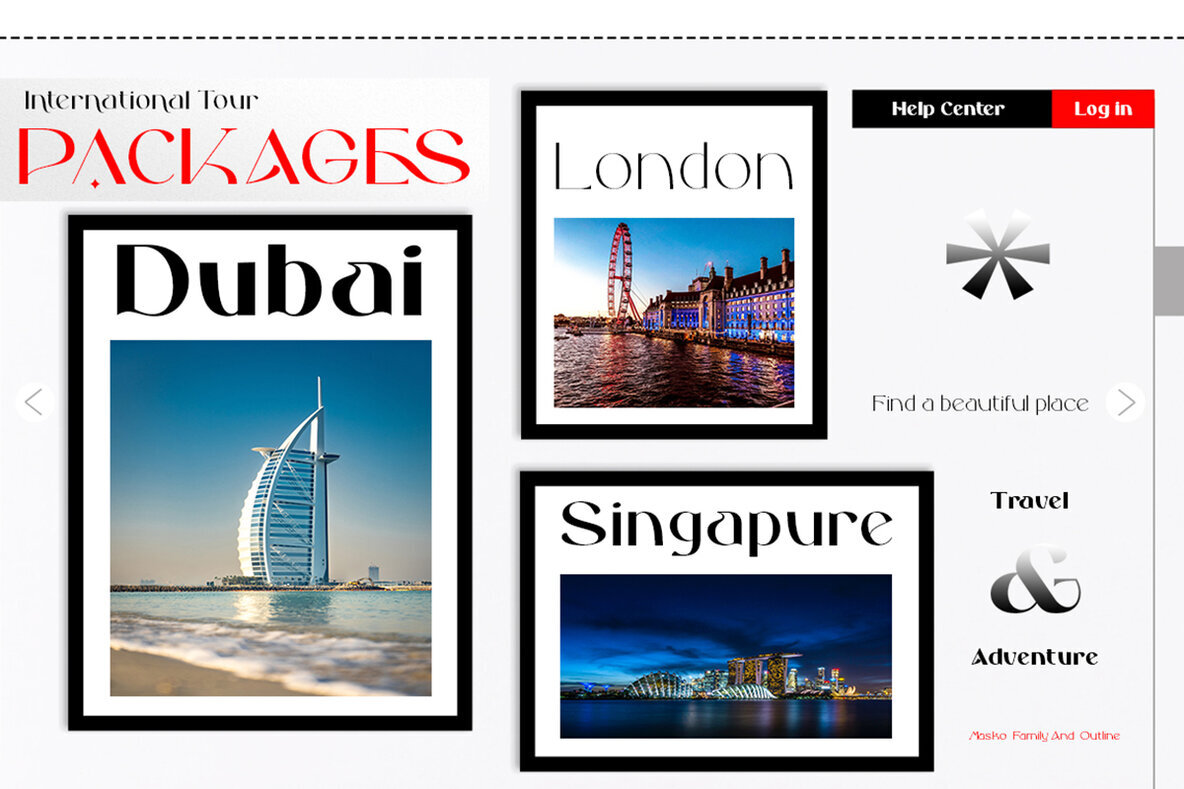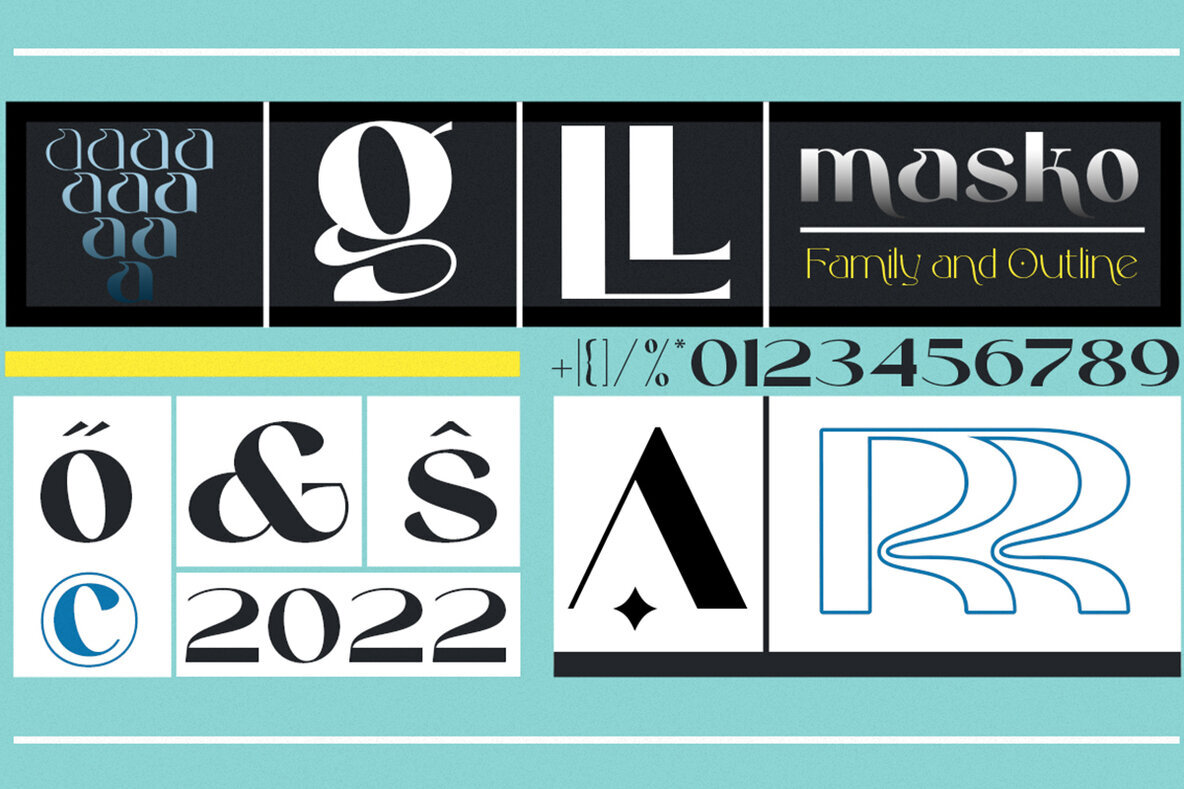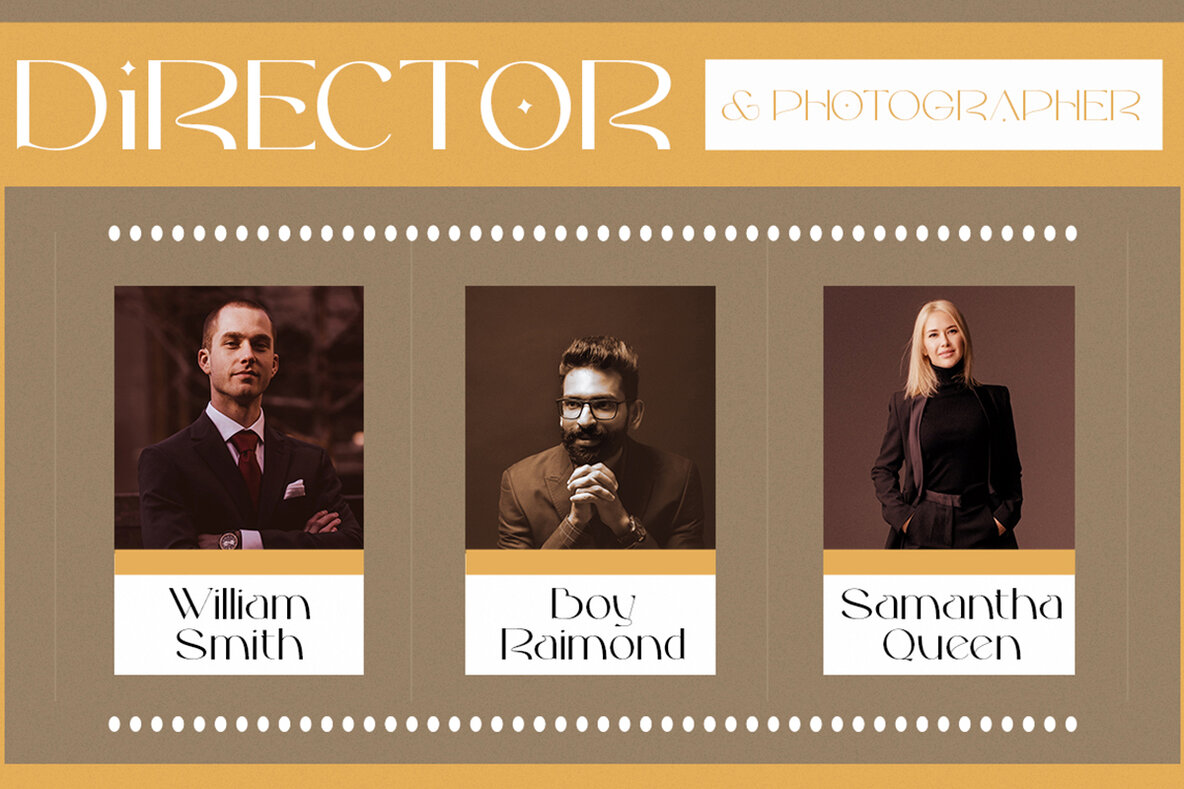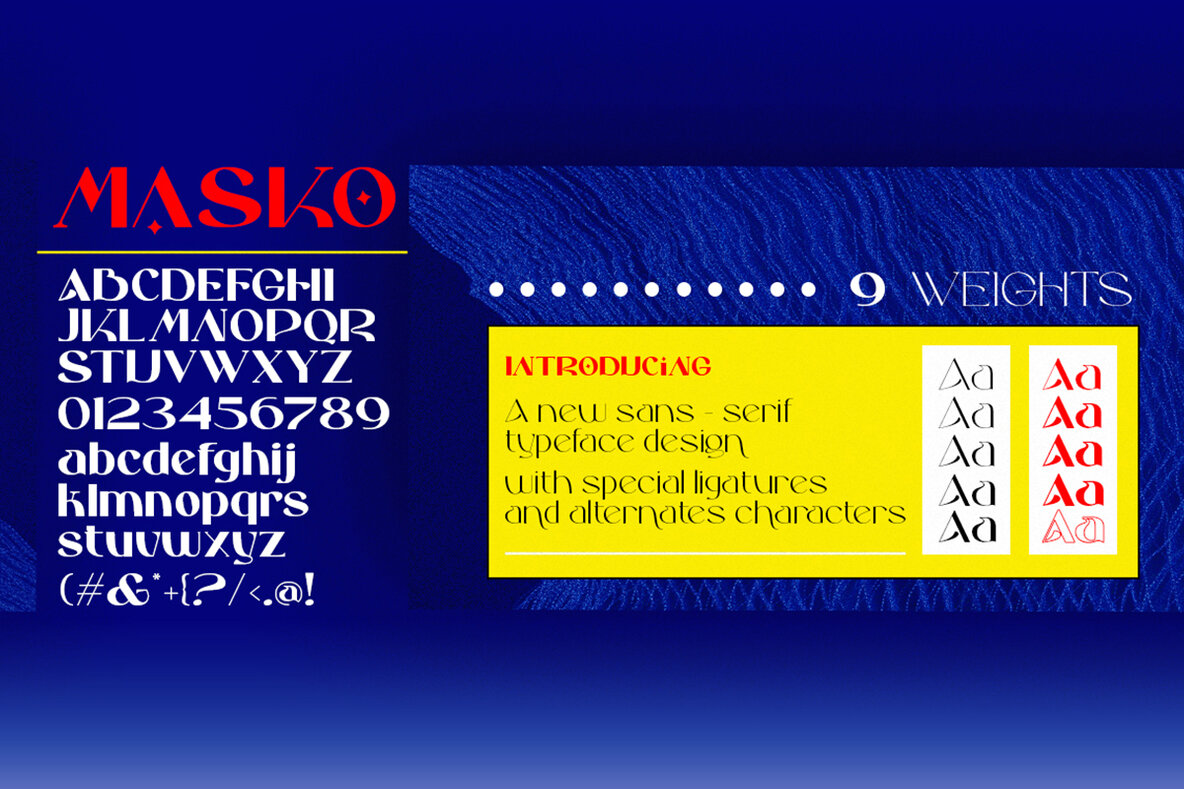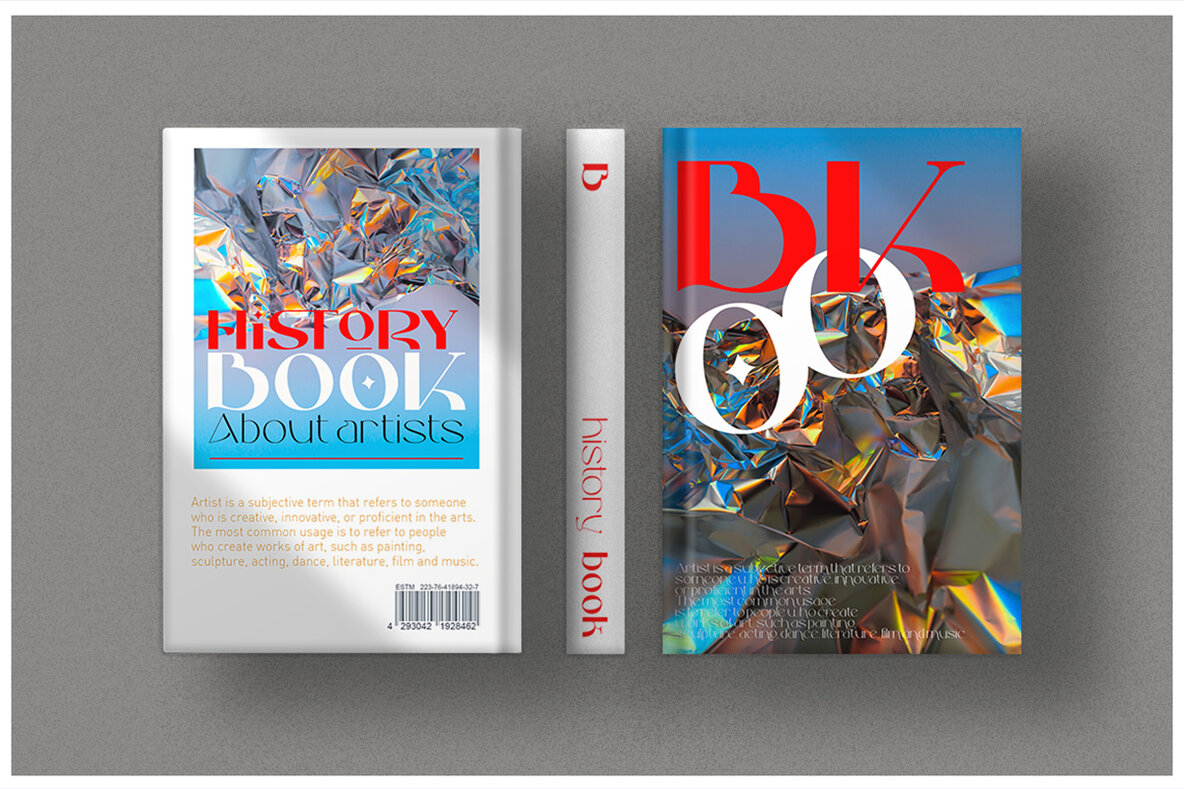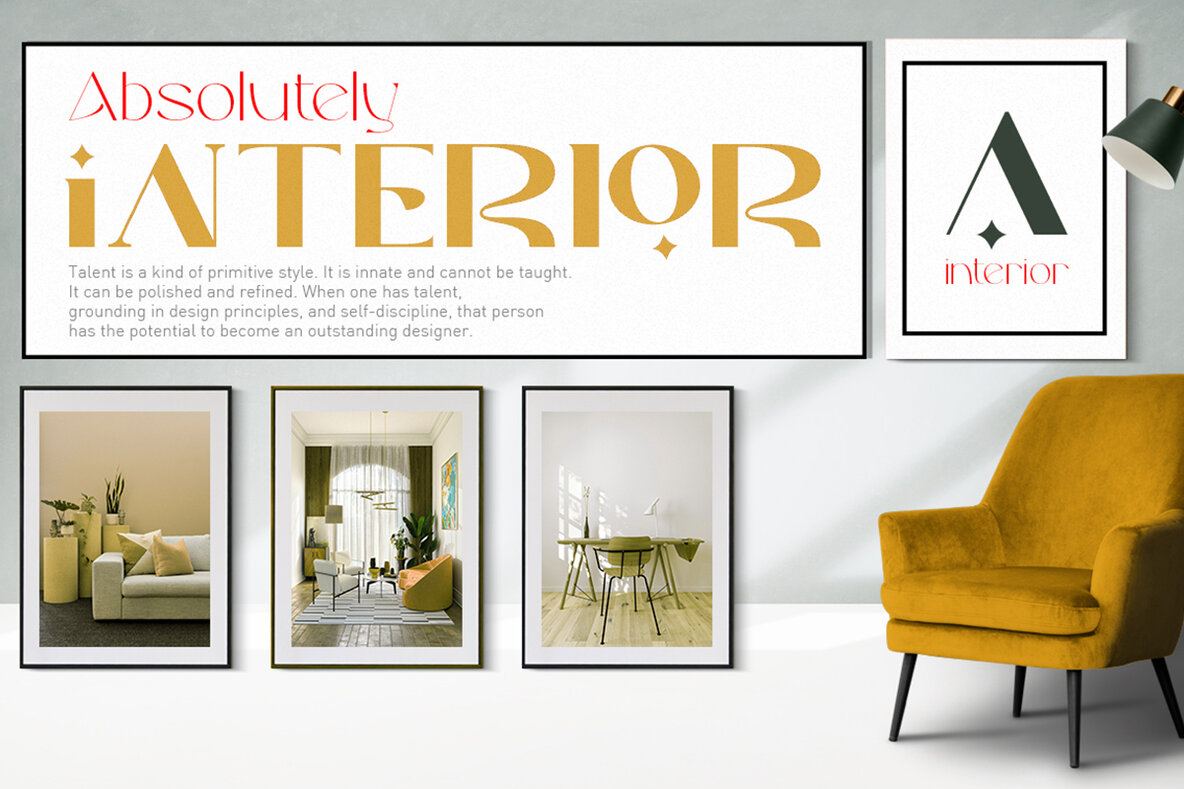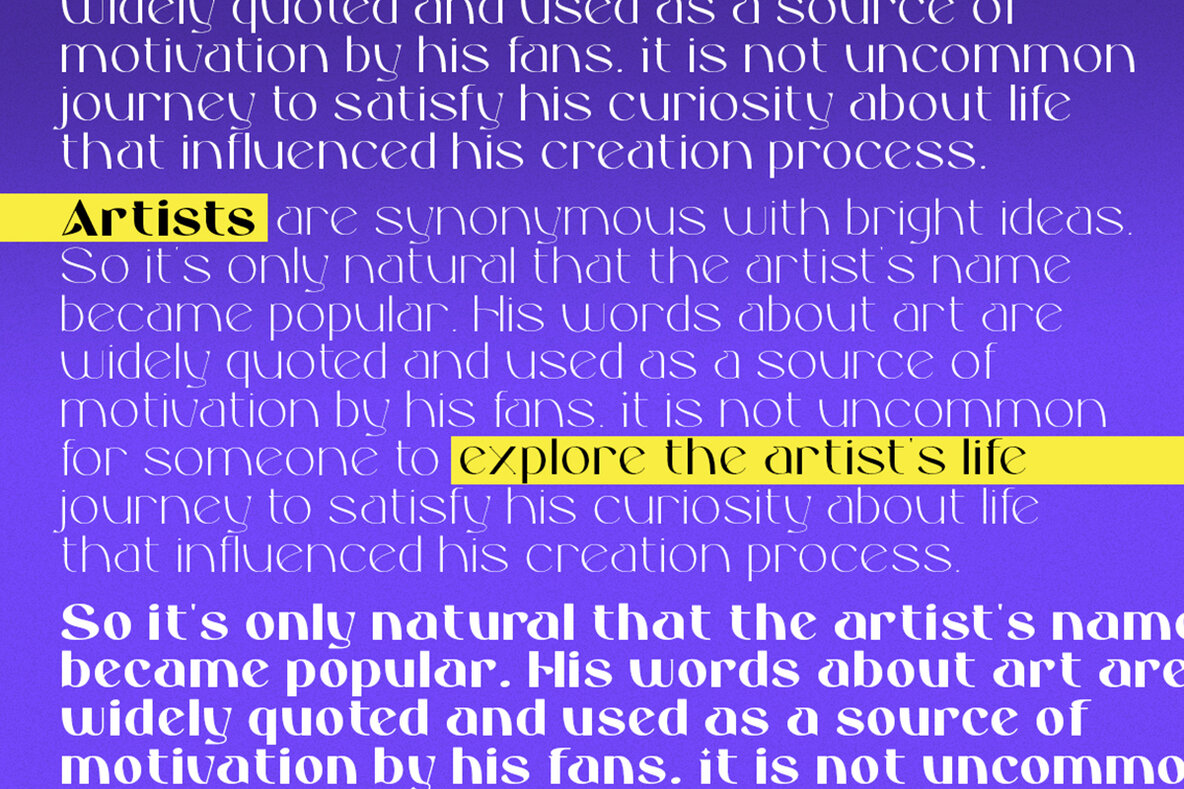
Masko Font
The Masko Family font is known for its versatility, making it an ideal choice for a wide range of applications, including magazine layouts, wedding invitations, branding projects, and poster designs. Explore the Masko Family font to elevate your design projects with its adaptable and stylish features.Masko Family: Versatile Font for Diverse Designs